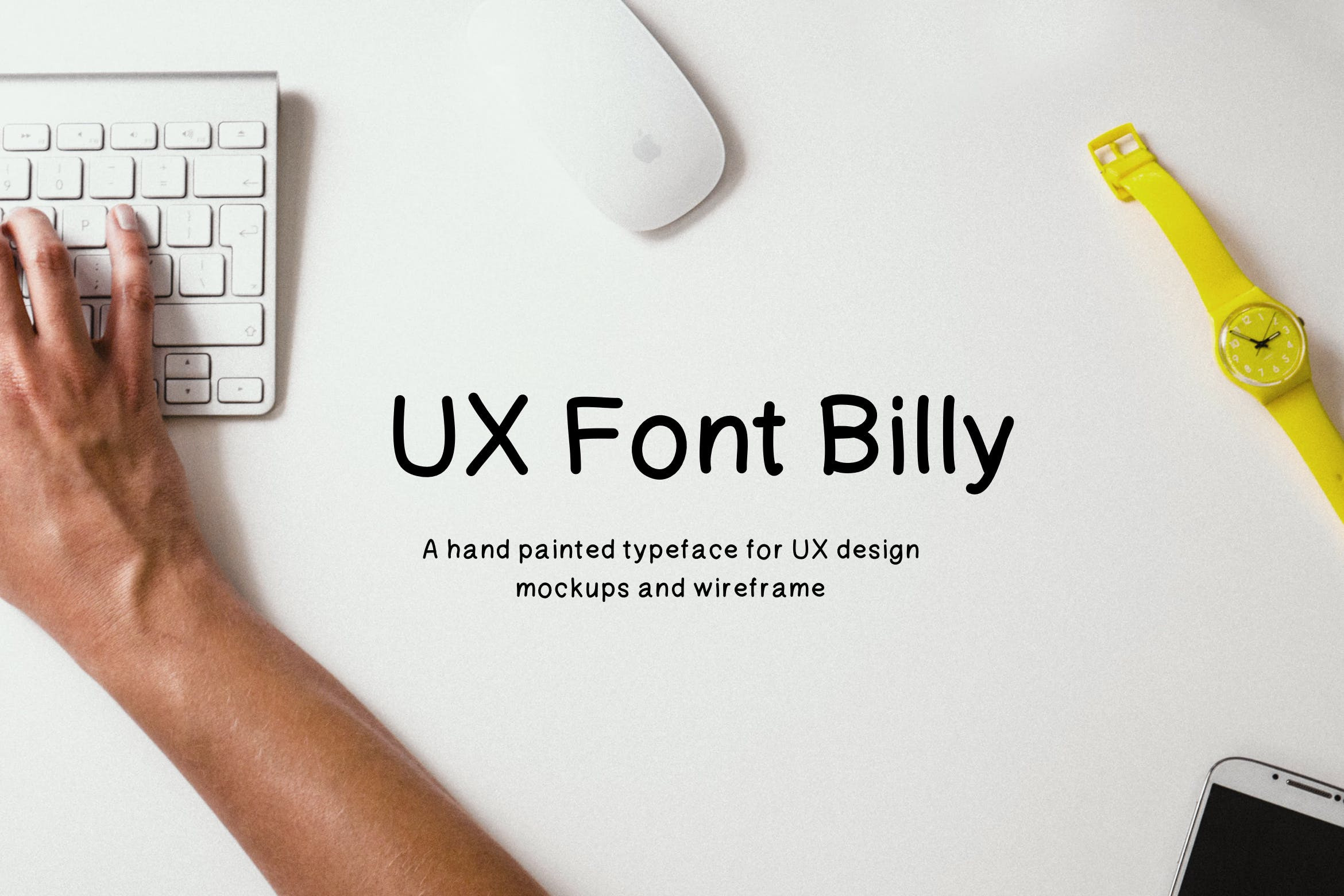
UX Typeface - Billy Handwritten
Billy Handwritten UX Typeface
Billy is a Handwritten Typeface, is a Perfect choice for, ux design, mockups, doodles, comments and more. The pack includes OTF, TTF and Web Fonts (all EOT, TTF, WOFF included).